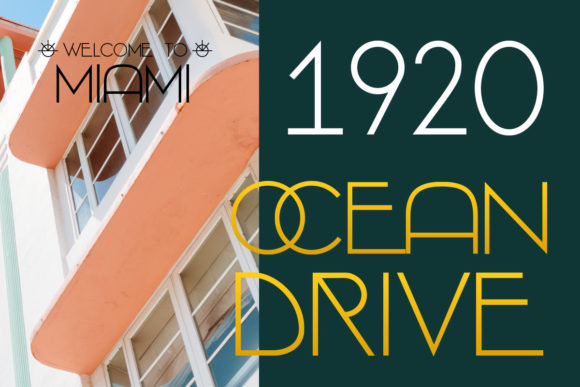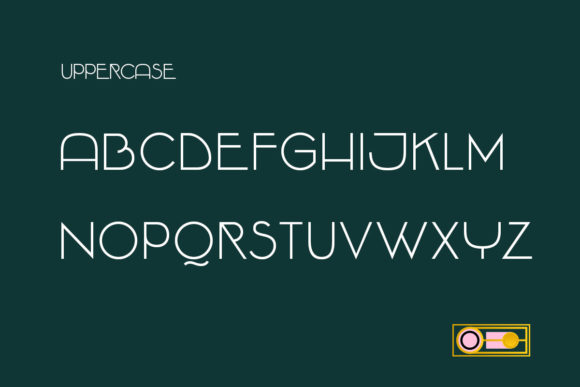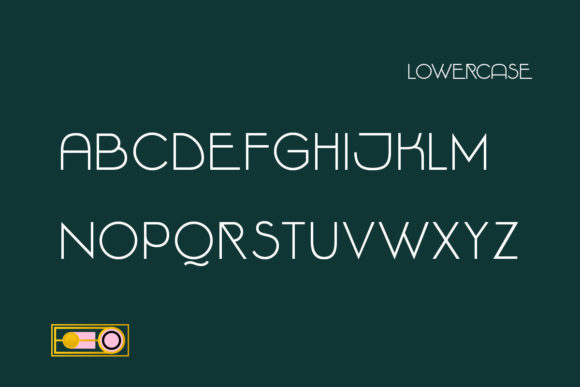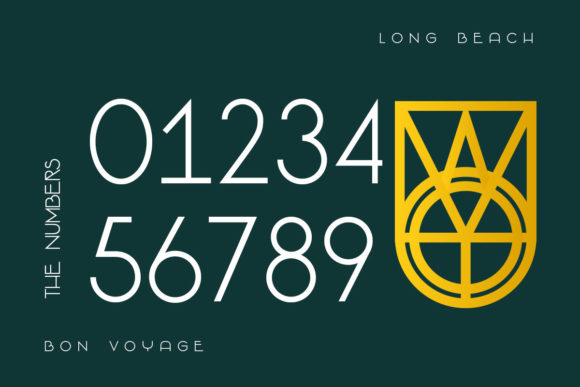
Introducing Appolonia Font: The Perfect Blend of Elegance and Modernity
In the world of design, typography plays a crucial role in conveying the message and aesthetic of a project. A font can make or break the visual appeal of a design, and that’s where Appolonia Font comes in – an exquisite, romantic, and minimalist sans serif font that can elevate the look of any crafty idea. In this article, we’ll dive into the features and benefits of Appolonia Font, and explore how it can make your designs feel more authentic and modern.
The Beauty of Appolonia Font
Appolonia Font is a stunning sans serif font that boasts a unique blend of elegance and simplicity. Its clean lines, subtle curves, and minimalist aesthetic make it perfect for designers and crafters looking for a font that exudes sophistication and refinement. Whether you’re working on a branding project, a craft tutorial, or a digital product, Appolonia Font is sure to impress.
One of the standout features of Appolonia Font is its romantic undertones. The font’s gentle curves and flowing lines evoke a sense of whimsy and playfulness, making it ideal for projects that require a touch of personality and charm. At the same time, its minimalist design ensures that the font remains versatile and easy to read, even at smaller sizes.
What Makes Appolonia Font So Special?
So, what sets Appolonia Font apart from other fonts on the market? Here are just a few reasons why designers and crafters are falling in love with this beautiful font:
- Authentic and Modern: Appolonia Font has a unique ability to make your designs feel both authentic and modern. Its clean lines and minimalist aesthetic ensure that your project looks contemporary and fresh, while its romantic undertones add a touch of warmth and personality.
- Versatile: Appolonia Font is incredibly versatile, making it suitable for a wide range of design projects. Whether you’re working on a logo, a brochure, or a digital product, this font is sure to adapt to your needs.
- Elegant and Refined: Appolonia Font is the epitome of elegance and refinement. Its subtle curves and gentle lines make it perfect for projects that require a touch of sophistication and luxury.
How to Use Appolonia Font in Your Designs
Appolonia Font is incredibly easy to use, even for designers who are new to typography. Here are a few tips to get you started:
- Pair it with bold colors: Appolonia Font looks stunning when paired with bold, bright colors. Try combining it with a vibrant hue to create a striking contrast.
- Experiment with font sizes: Appolonia Font remains legible even at smaller sizes, making it perfect for projects that require a range of font sizes.
- Add a personal touch: Appolonia Font’s romantic undertones make it perfect for adding a personal touch to your designs. Try adding a handwritten element or a decorative flourish to give your project a unique feel.
In conclusion, Appolonia Font is a game-changer for designers and crafters looking for a font that combines elegance, simplicity, and personality. Its unique blend of romanticism and minimalism makes it perfect for a wide range of design projects, from branding and advertising to digital products and crafts. Whether you’re looking to elevate the look of your project or simply want to add a touch of sophistication, Appolonia Font is the perfect choice.